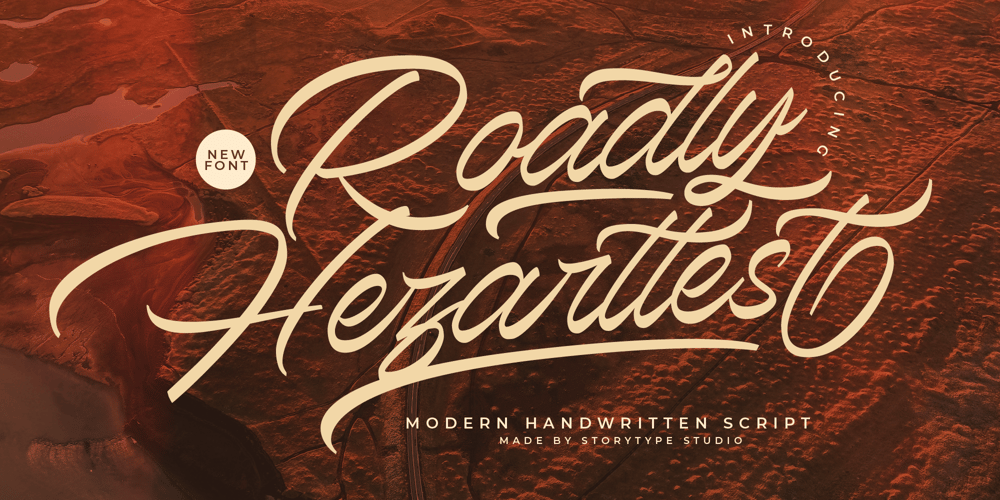
Roadly Hezarttest Font Family was designed by Heru Utama Putra and published by Letterena Studios. Roadly Hezarttest contains 2 styles and family package options. Proudly present Roadly Hezarttest – Modern Handwritten, luxury script that has its own unique style & modern look.This typeface is perfect for an elegant & luxury logo, book or movie title design, fashion brand, magazine, clothes, lettering, quotes, and so much more.